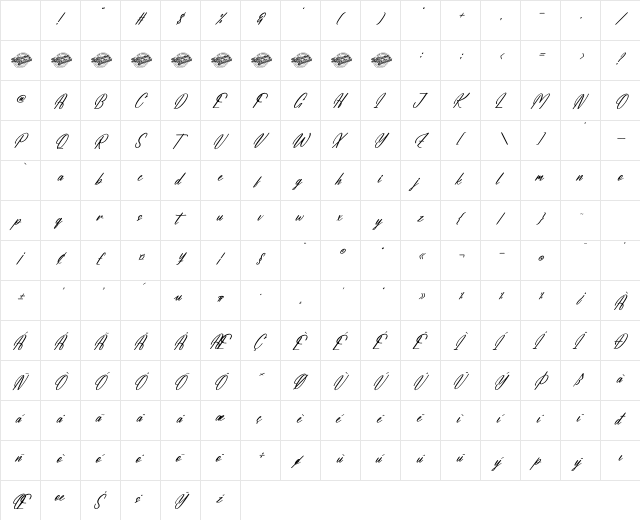
Complete Amathery Bieckmon DEMO VERSION Italic glyph index. Displaying only characters natively supported by Amathery Bieckmon DEMO VERSION Italic font.
Amathery Bieckmon DEMO VERSION is a composed and adaptable typeface that performs quietly and consistently across a wide range of design contexts. The slanted form adds forward momentum and visual energy.